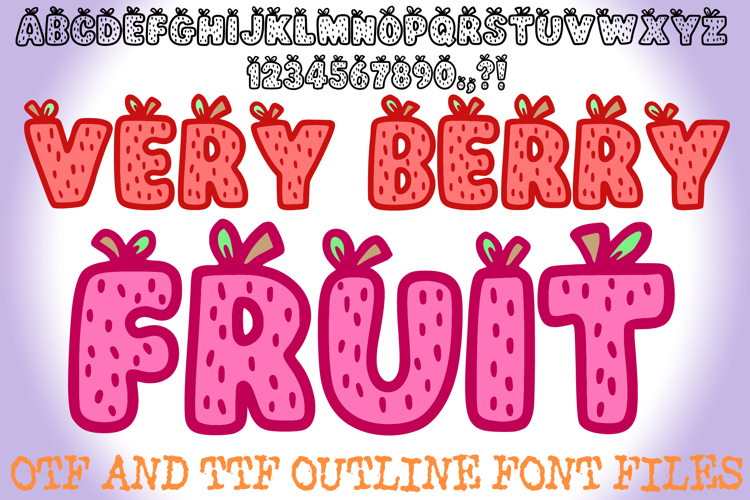
Very Berry Fruit Alphabet Lettering ABC Text Font OTF
Add a burst of sweet fun and fruity charm to your designs with Very Berry Fruit Font! This utterly delightful typeface is inspired by juicy berries, featuring plump, rounded letterforms adorned with adorable little stems and speckles. It's more than just a font; it's a basket full of whimsical deliciousness, perfect for projects that need a touch of heartwarming cuteness, playful energy, and an undeniable sprinkle of joy!
Each character in Very Berry Fruit Font is crafted with a charming, bubbly outline, and its interior is speckled with seeds, topped with a cute berry stem and leaf detail. This unique and endearing visual effect makes it an ideal choice for children's books, fruit-themed branding, farmer's market signage, healthy snack packaging, summer party invitations, nursery decor, or any design calling for a unique blend of sweetness, freshness, and animated personality.
Whether you're creating lively event promotions, designing adorable product packaging, crafting cheerful social media posts for food or kids' brands, or adding a whimsical touch to digital art, this font will bring an undeniable sense of fun, originality, and a vibrant, fresh aesthetic to your work. Its clear yet bubbly forms ensure readability while delivering a memorable visual experience.
If you're looking to infuse your designs with a sense of playful sweetness, charming texture, and an undeniable touch of fruity delight, Very Berry Fruit Font is your ultimate tool. Get berry creative!